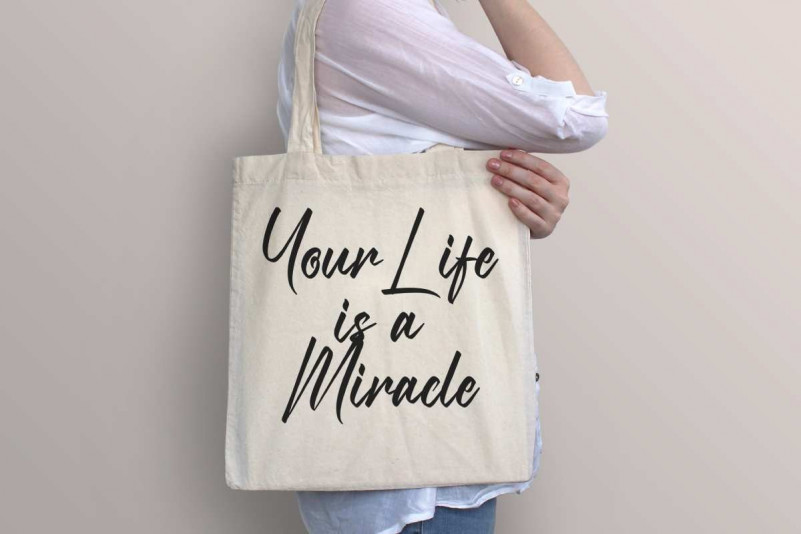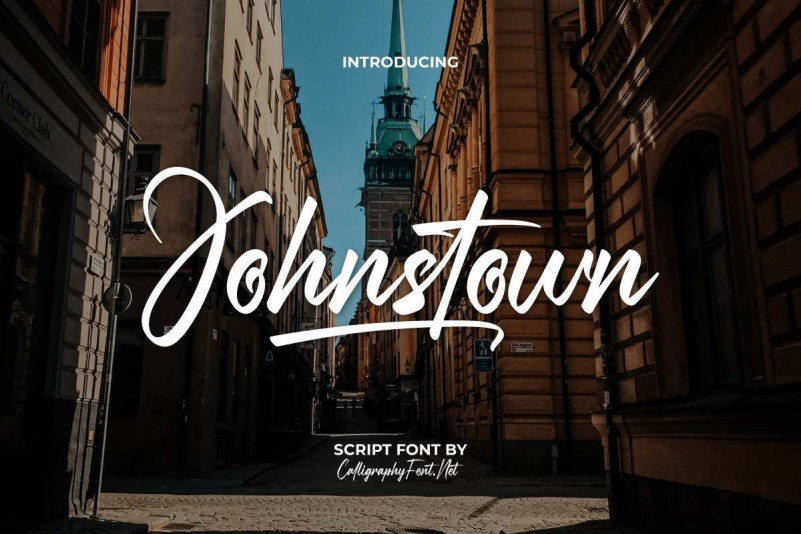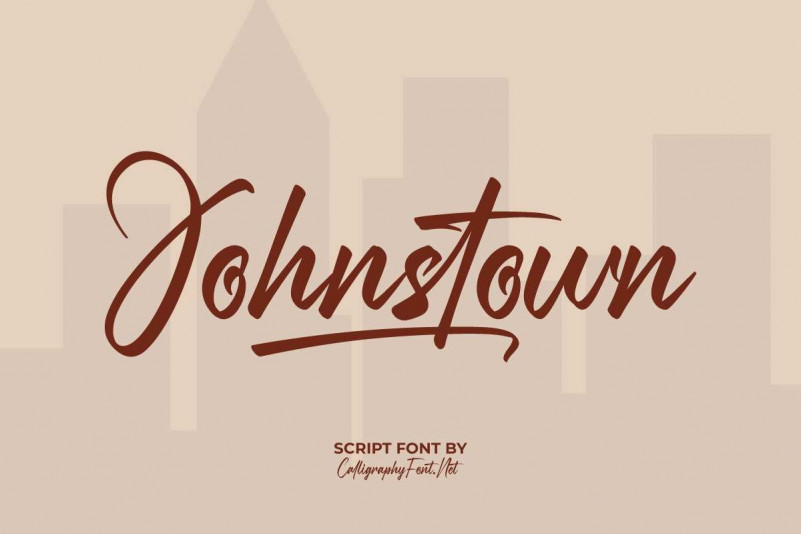
Johnstown Script Font
Johnstown Font is a great handwriting calligraphy font by CalligraphyFonts.net. It will be awesome for brandings, social media, video, logotype, invitation, flyer etc
Johnstown Font is a beautiful handwriting calligraphy font. It has unique looks that are chic, modern, elegant, luxury, lettering and sophisticated handwritten font.